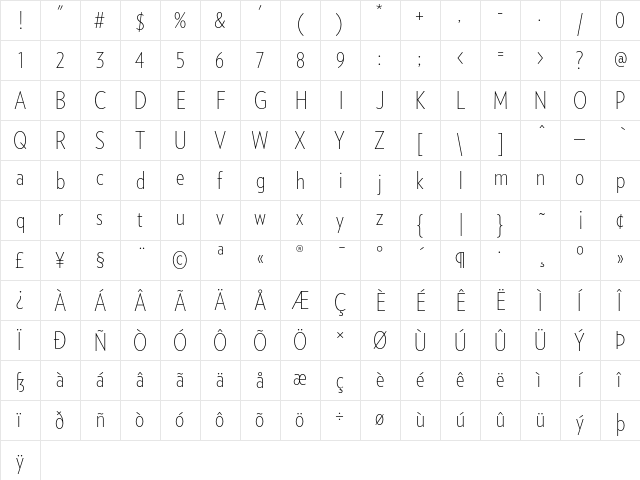
Verlag Condensed Extra Light
Design Context for Verlag Condensed Typeface
Verlag Condensed offers clean, dependable letterforms without strong stylistic allegiance, making it a practical choice for designers who need flexibility. The delicate stroke weight brings airiness and refinement to layouts. Its narrow stance lets it pack a punch even in space-constrained designs.
Pro Tip: Pair Verlag Condensed with a font of contrasting weight or personality to build a more expressive typographic hierarchy.